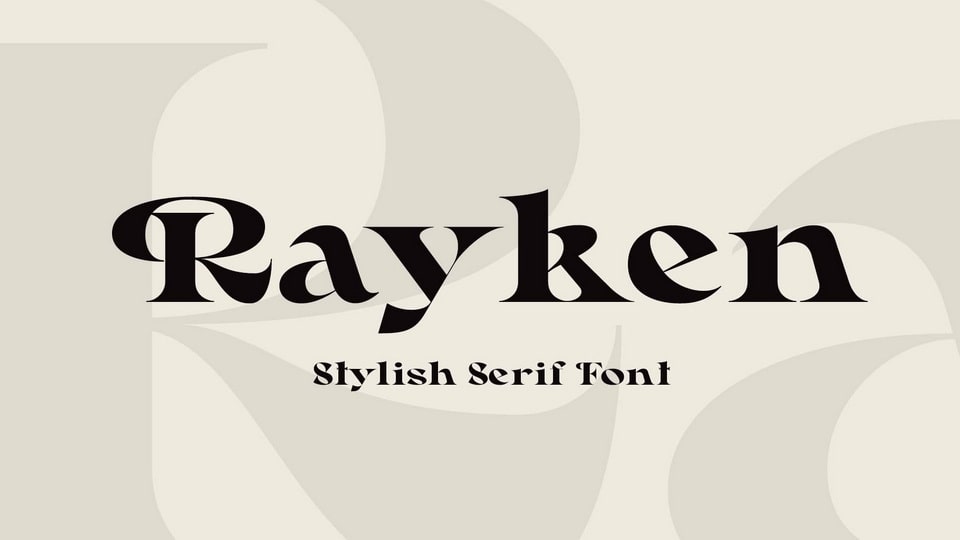
Download Rayken font, a modern and stylish serif typeface designed to create high-quality typography that can be used in a variety of different contexts. Whether you’re designing headlines or body text, Rayken will help you achieve the perfect balance between legibility and aesthetics.